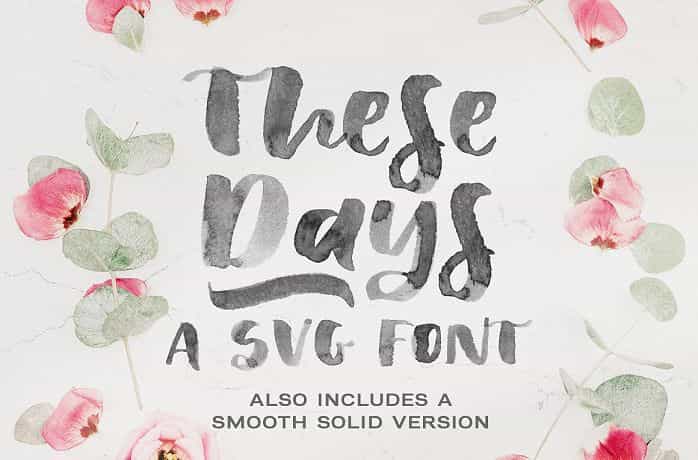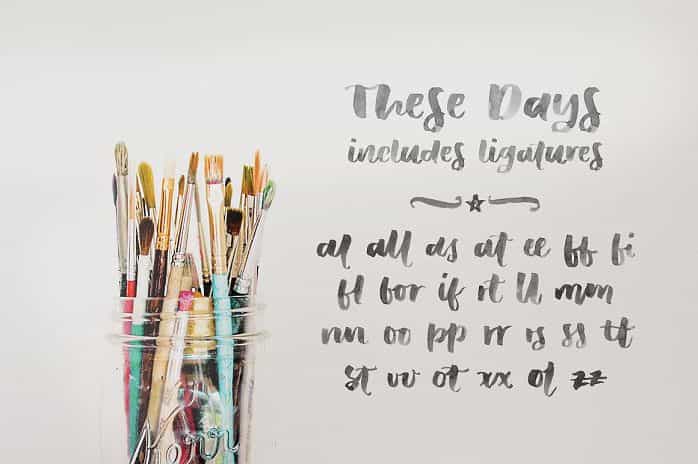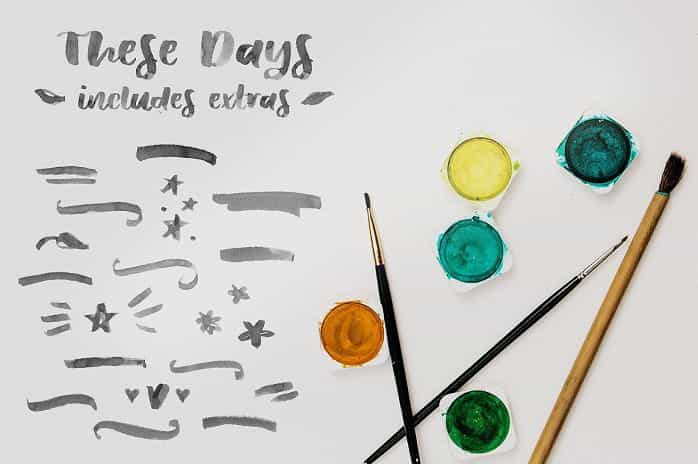
Introducing These Days Font. These Days is a SVG watercolour brush font with a heavy and textured appearance. The SVG font has a simpler character set without multilingual support. Besides, it has 26 ligatures and a set of doodles, swashes and splatters (in the Extras files) which you can use to adorn your designs.